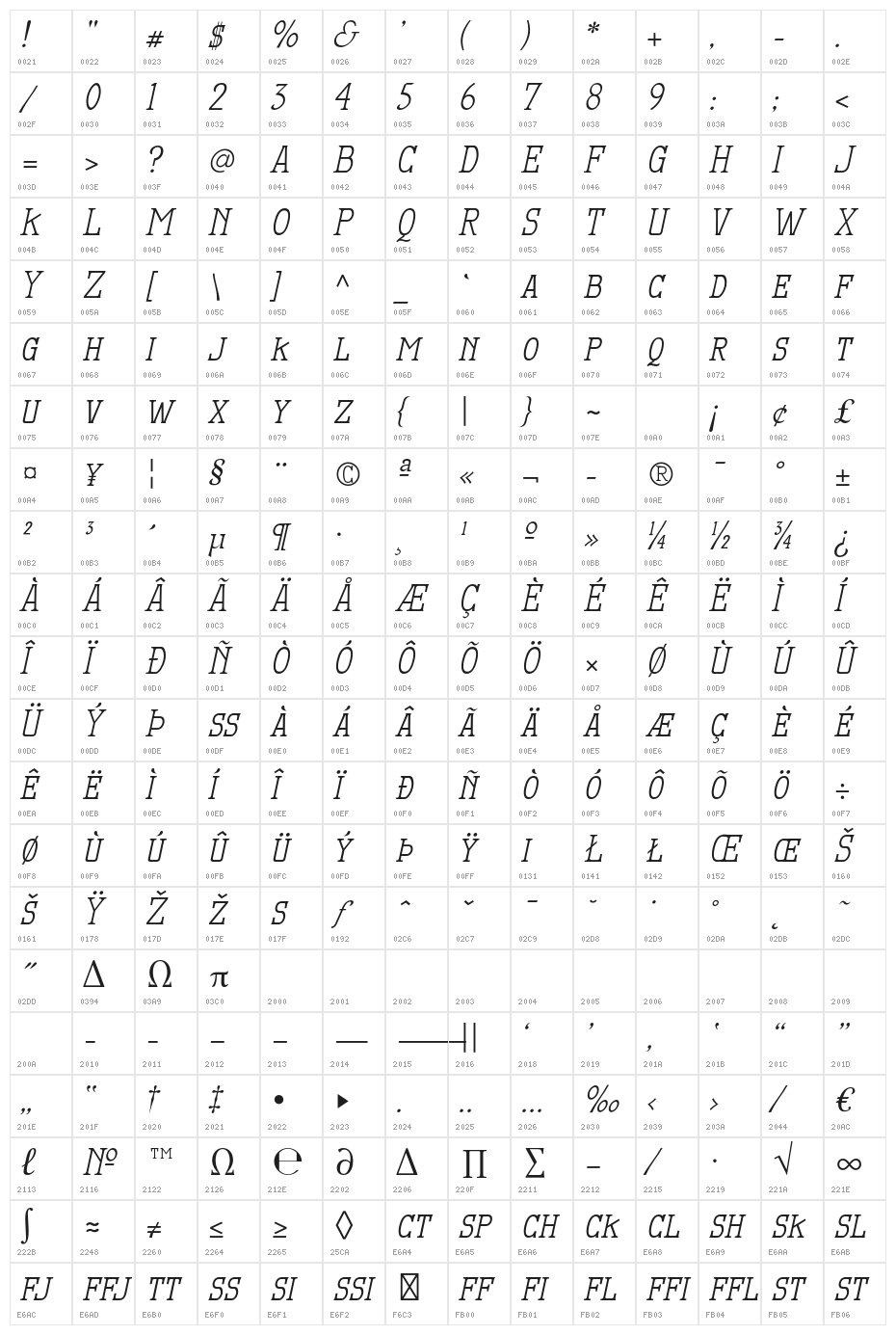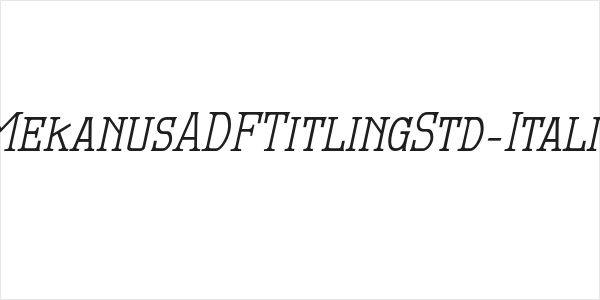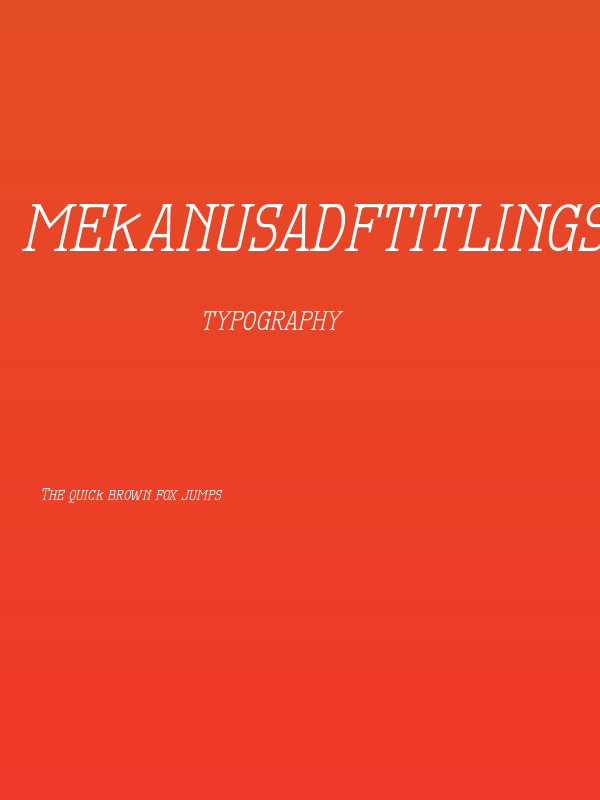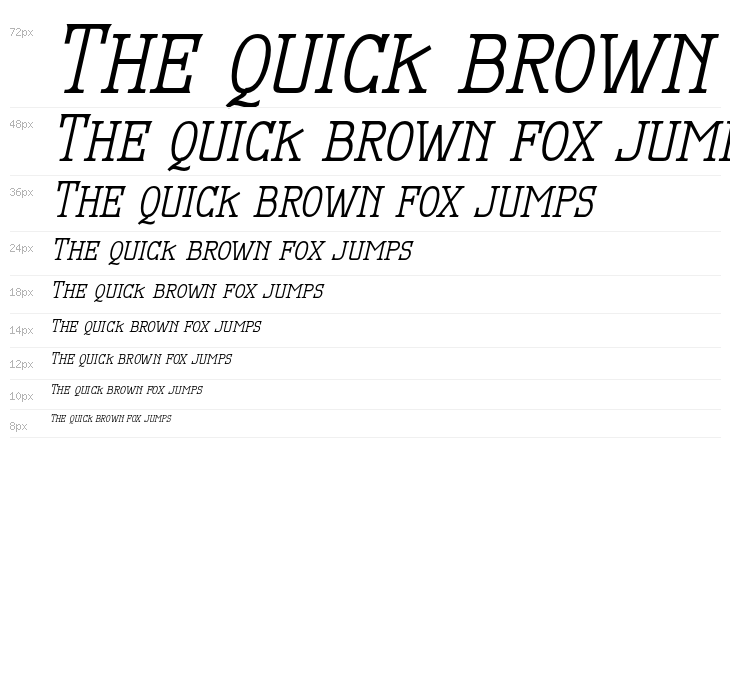
MekanusADFTitlingStd-Italic Font
MekanusADFTitlingStd-Italic Description
This font features a classic italic style with a refined and elegant appearance. The characters are slightly slanted, giving a sense of motion and sophistication. The strokes are smooth and consistent, with moderate contrast between thick and thin lines. The serifs are subtle yet distinct, adding a touch of traditional flair. The overall design is clean and legible, making it suitable for a variety of applications. The numerals and special characters maintain the same elegant style, ensuring consistency across all text elements.
| Proposed Projects | Ideal for formal invitations, elegant branding, book covers, and editorial design. |